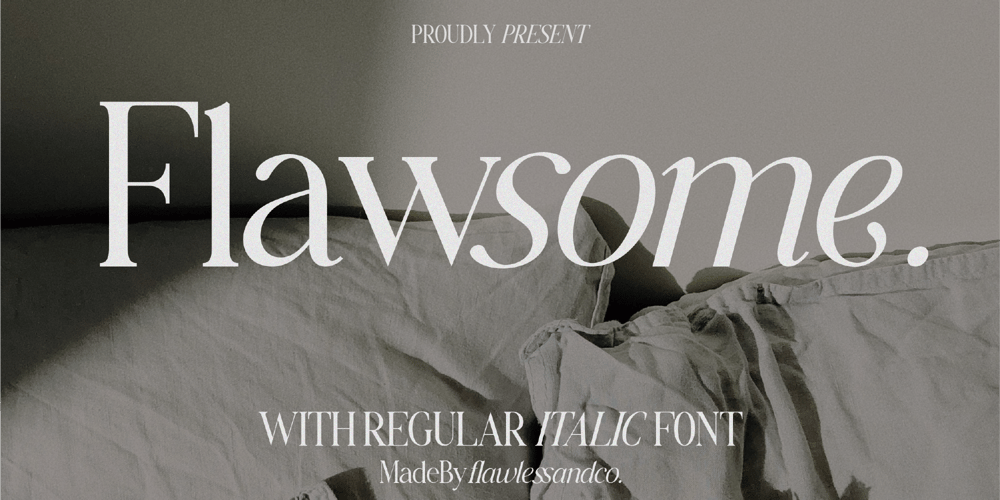
Flawsome Font Family was designed by Achmad Yani and published by Flawlessandco. Flawsome contains 2 styles and family package options. Flawsome is a stylish and modern italic serif font that combines traditional serif elements with contemporary design features. There’s some connected letters and some alternates that suitable for any graphic designs such as branding materials, t-shirt, print, business cards, logo, poster, t-shirt, photography, quotes .etcThis font support for some multilingual. Also contains uppercase A-Z and lowercase a-z, alternate character, numbers 0-9, and some punctuation.If you need help, just write me! Thanks so much for checking out my shop!